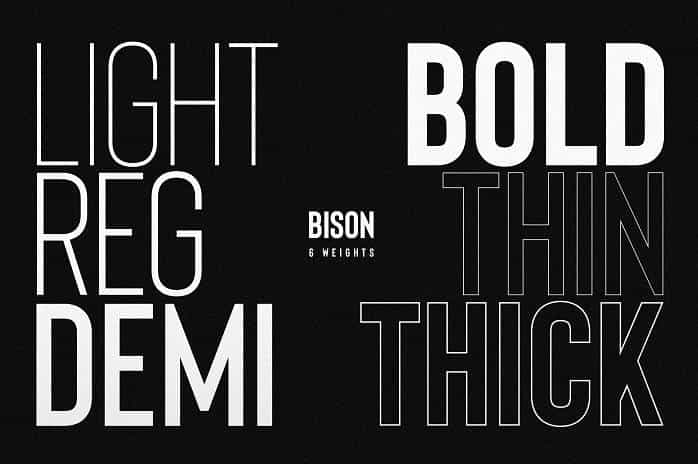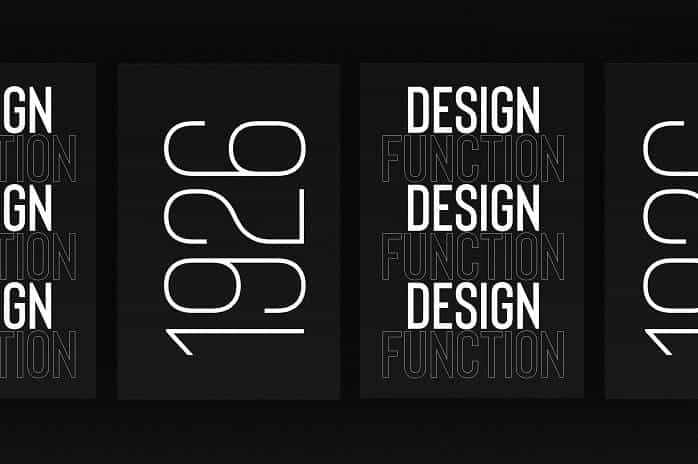
Bison font family continues its legacy of excellence. Designed and distributed with Ellen Luff, Bison is now known for its elegant sans serif font family that takes inspiration from animals such as bison; its strong uncompromising style can be seen through carefully crafted forms with contemporary accents; balanced between hard lines and soft curves for optimal reading experiences.